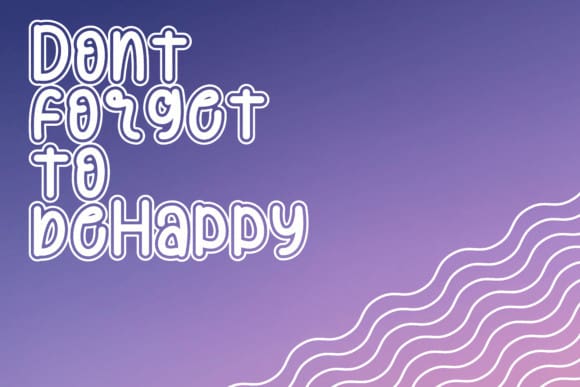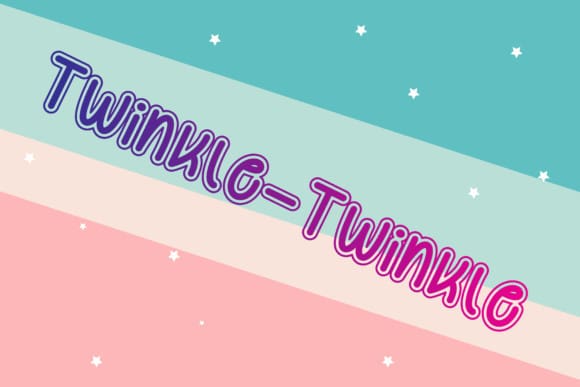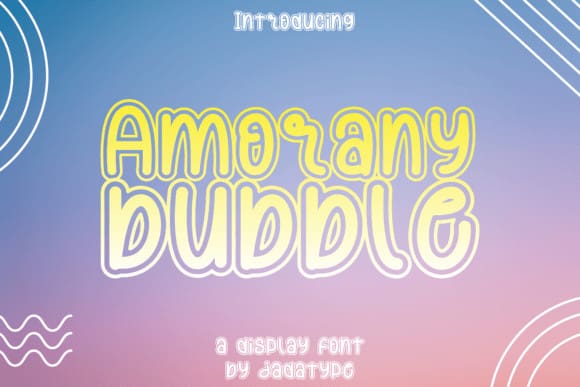
Amorany Bubble Font
Amorany Bubble Font is a display font with its playful things. It gives the impression of being fun, bouncy, bold, and exciting, and can be used to print your designs, social media, writing, crafts, and others.